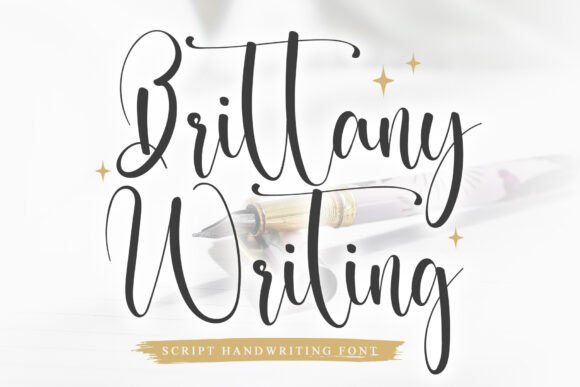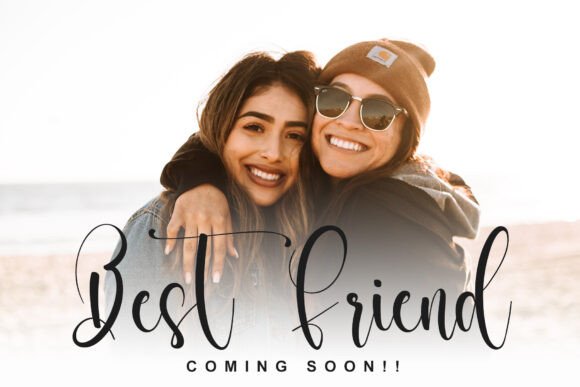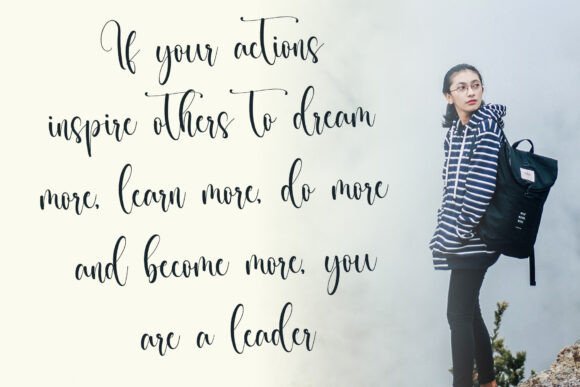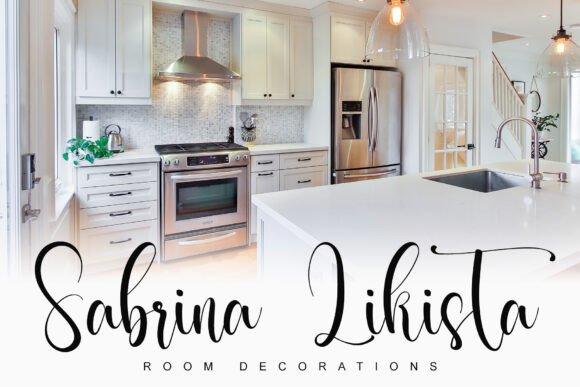
Brittany Writing Font
About the Brittany Writing Font
Add a touch of class to your work with the Brittany Writing Font, a truly exceptional typeface. Brittany Writing is a font that exudes class, combining the beauty of script handwriting with a bold and timeless vintage touch. With its fluid strokes, graceful curves, and dynamic flow, this font is perfect for creating a sophisticated yet powerful impression. Whether you need a stylish signature, branding design, or nostalgic vintage aesthetics, Realistic Vintage delivers elegance and uniqueness effortlessly.
Brittany Writing excels in headline treatments, short-form text blocks, and branding applications where a touch of vintage elegance is desired. It’s ideal for logos, invitations, or short quotes within packaging designs. However, its decorative nature makes it unsuitable for body text or UI elements requiring high readability. Avoid using it for lengthy paragraphs or website copy.
For effective pairings, consider complementing Brittany Writing with a clean sans-serif like Open Sans for body text or a geometric sans-serif like Montserrat for a more modern contrast. A subtle serif like Lora could also provide a balanced, classic feel. Avoid pairing it with other highly decorative scripts to prevent visual clutter.
Brittany Writing projects a bold yet elegant personality, conveying sophistication and a touch of vintage charm. It’s best suited for brands aiming for a timeless, luxurious, or slightly nostalgic aesthetic.
Brittany Writing Font Example